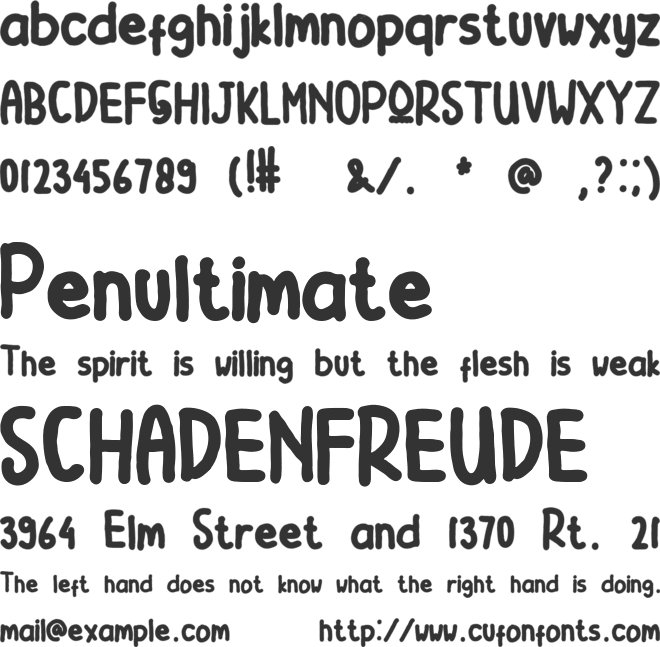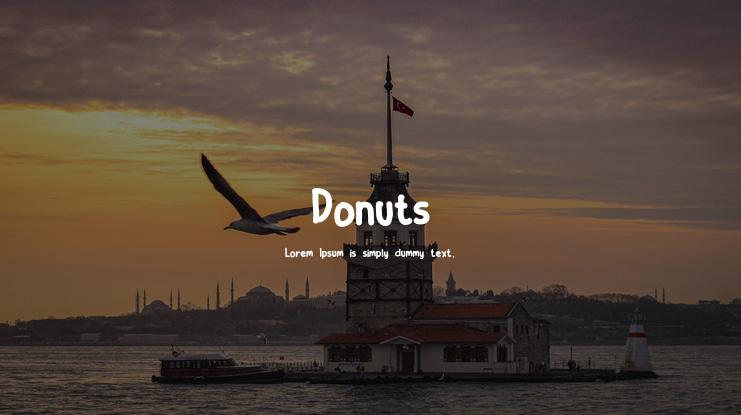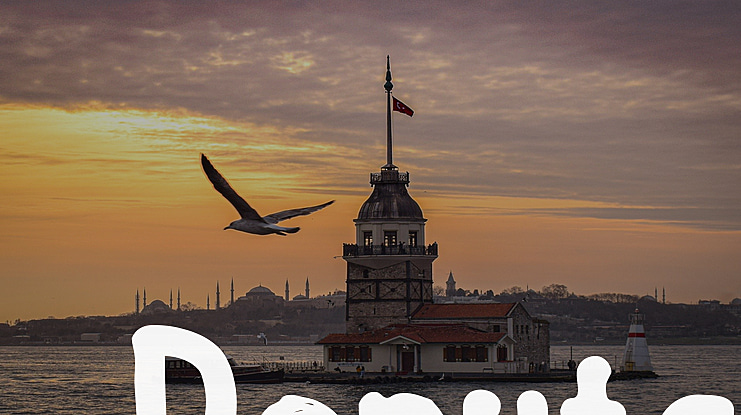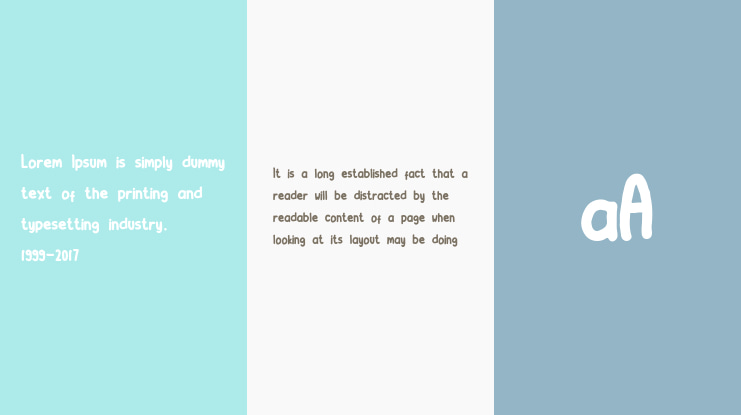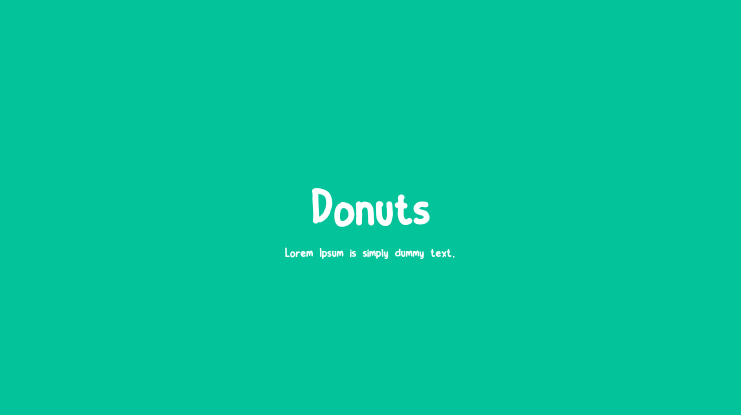
Donuts Font
Donuts is a simple and joyful handwritten font. It has a clean, thin and smooth vibe and it will be a hit for any design that you want to add it to.